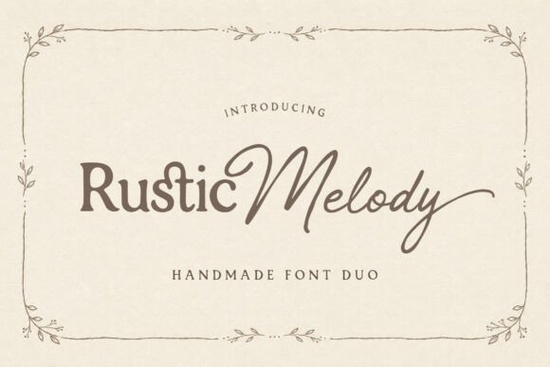
If you’ve been searching for a font that feels both personal and polished, Rustic Melody Font might be exactly what your next project needs. This handmade font duo pairs a graceful serif with a soft, flowing script ideal for anyone creating wedding invitations, branding materials, or even cozy product packaging. It’s especially popular among designers and small business owners who want to add warmth and authenticity without sacrificing elegance.
What makes Rustic Melody stand out is how naturally the two styles complement each other. The serif brings structure and readability, while the script adds a human, handwritten charm. Together, they create a look that’s romantic but not overly fussy perfect for projects inspired by countryside aesthetics, artisanal goods, or timeless feminine design.
Who is this font best suited for?
Rustic Melody works beautifully across a range of creative fields:
- Wedding stationery designers can use it for save-the-dates, menus, and place cards that feel intimate yet refined.
- Print-on-demand sellers will find it ideal for mugs, tote bags, and wall art featuring quotes or seasonal messages.
- Small businesses in the bakery, floral, or boutique sectors can apply it to labels, signage, or social media graphics to convey warmth and care.
- Photographers and bloggers often overlay the script version on images for captions or featured quotes that feel organic and unposed.
If you're drawn to fonts with character but still need versatility, Rustic Melody delivers. You can easily mix and match the serif and script within the same layout say, using the serif for headings and the script for accents to build visual interest without clutter.
How does it compare to similar serif-script combos?
Not all font duos strike the right balance between personality and practicality. Some lean too heavily into whimsy, making them hard to read at smaller sizes. Others feel too stiff, losing that handcrafted appeal.
Rustic Melody avoids both pitfalls. Its serif maintains clean lines suitable for body text or subheadings, while the script retains enough flow to feel genuine not computer-generated. If you like this style but want alternatives to explore, you might also enjoy browsing Rethena Font, which offers a slightly bolder serif paired with a more structured script.
For those specifically looking for rustic-inspired serifs, the collection at Rustic Melody Font in serif fonts includes complementary options that share its earthy, timeless vibe.
Where can you use Rustic Melody effectively?
This font shines in both digital and print formats, as long as you respect its natural rhythm:
- Invitations & greeting cards: Use the script for names or short phrases, and the serif for event details.
- Branding & logos: The serif works well for business names; the script adds flair to taglines or icons.
- Social media posts: Overlay script quotes on lifestyle photos for an authentic, journal-like feel.
- Packaging & labels: Especially effective for handmade soaps, candles, or baked goods where “crafted with care” is part of the message.
Because it’s a handmade font, slight variations in letterforms give it texture something that reads as intentional, not sloppy. That makes it particularly appealing for audiences who value authenticity over perfection.
- Pair thoughtfully. If you’re combining it with other fonts, choose simple sans-serifs or neutral typefaces to avoid visual competition.
Whether you’re designing a wedding suite, launching a new product line, or refreshing your Instagram aesthetic, Rustic Melody offers a grounded yet graceful foundation. Its blend of structure and spontaneity makes it a reliable choice for creators who want their work to feel both intentional and heartfelt.